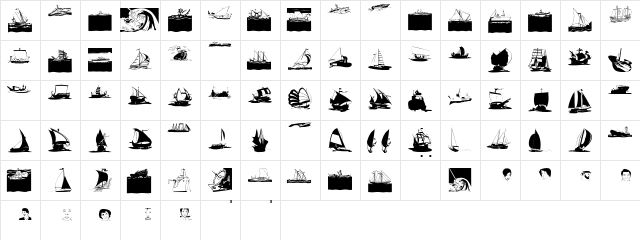
Maritime Regular Font Preview
Maritime Regular
Design Context for Maritime Typeface
Maritime is a composed and adaptable typeface that performs quietly and consistently across a wide range of design contexts.